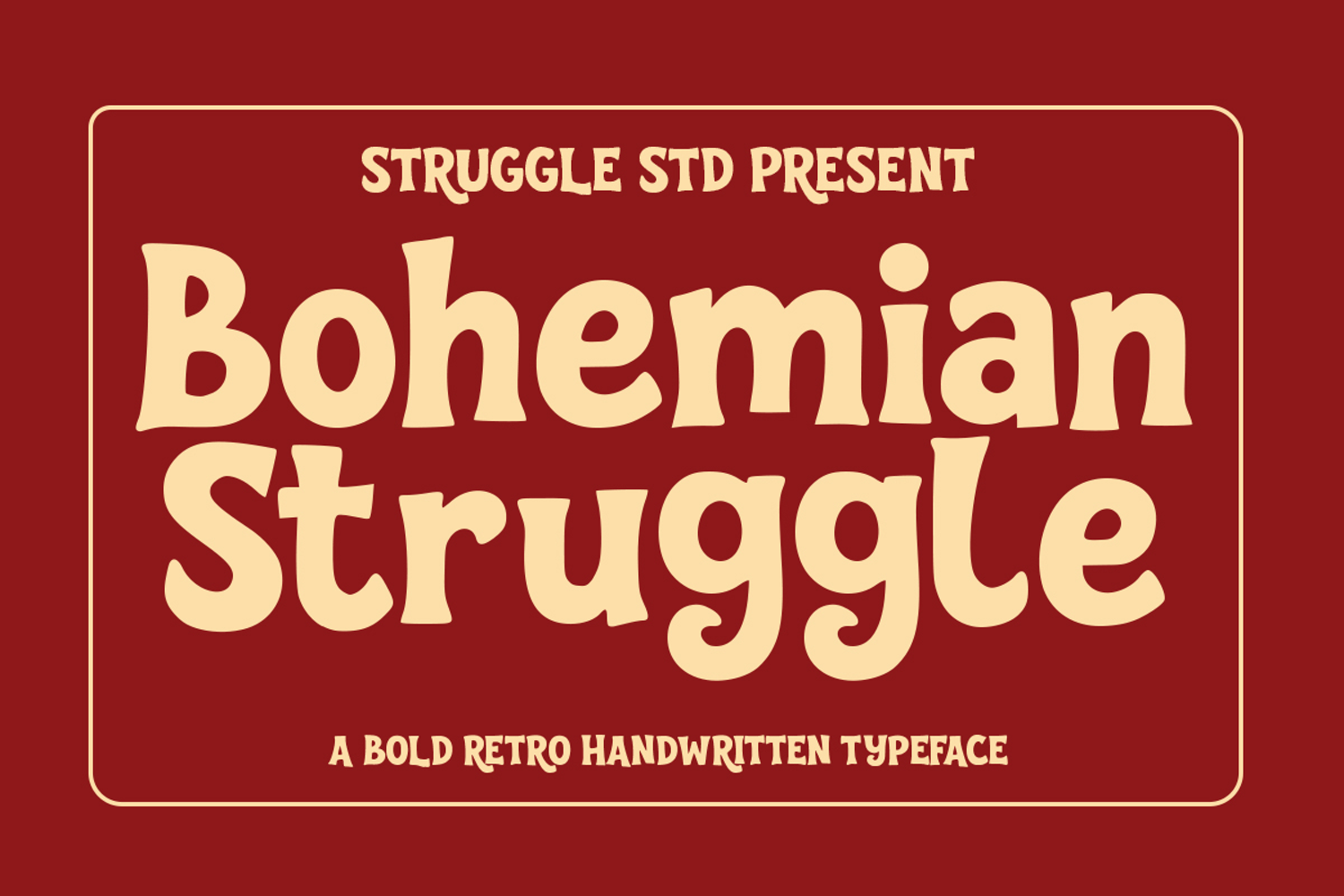
Bohemian Struggle is a bold retro handwritten typeface featuring a warm, relaxed 1970s vintage character. Its organic curves deliver an authentic hand-drawn feel while maintaining a solid structure that ensures high legibility.
Key Features
- Retro & Groovy Aesthetic: Delivers a nostalgic, classic vibe suited for vintage, bohemian, and pop-art designs.
- Bold Handwritten Style: A distinct blend of eye-catching thickness and handwritten fluidity.
- Expressive & Friendly Character: Softened edges create an approachable, lively, and free-spirited feel.
Best Used For This typeface is designed to stand out across various display applications:
- Branding & Logos: Brand identity for apparel, coffee shops, or handcrafted products.
- Product Packaging: Labels for food, beverages, and organic cosmetics.
- Posters & Merchandise: T-shirt prints, book covers, music posters, and social media quotes.
- Headlines & Titles: Grab attention on magazine covers, banners, and promotional materials.